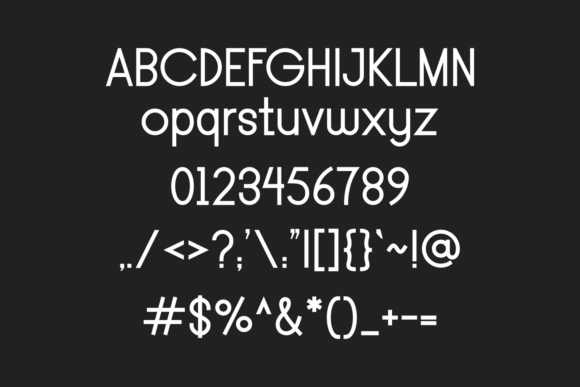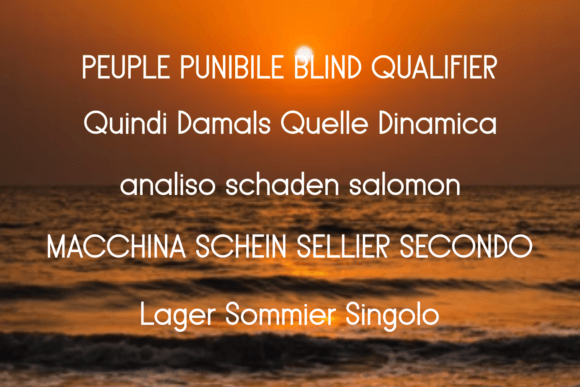
Introduction to Bagros Font
As you stare at your blank canvas, waiting for inspiration to strike, you know that the right font can make all the difference. You’ve been searching for the perfect sans serif to elevate your creative project, and we’re here to tell you that your search is over. Say hello to the Bagros Font, a modern and cool sans serif font that’s about to take your design to the next level.
With its sleek and sophisticated design, Bagros Font is the perfect addition to any project. Whether you’re working on a branding campaign, a logo, or a web design, this high-quality font is sure to impress. And the best part? It’s completely free to download, making it a valuable resource for designers of all levels.
Key Features of Bagros Font
- High-quality design resource with a unique, elegant style suitable for creative projects.
- Features a transparent background, making it easy to use in design projects with complex backgrounds.
- Supports a wide range of languages, including Latin, Cyrillic, and Greek alphabets.
- Includes multiple font styles, such as bold, italic, and regular, to suit different design needs.
- Designed with a high resolution (up to 1024 x 1024 pixels) for crisp and clear typography.
- Perfect for use in creative projects, such as logos, branding, and digital art, where a unique and elegant font is required.
Honest Review: Bagros Font
I recently came across the Bagros Font while searching for a design resource for a creative project. I was immediately drawn to its unique style and decided to give it a try.
- The font features a transparent background, allowing for seamless integration into various design elements.
- The Bagros Font is a high-quality addition to any design project, offering a unique and creative flair.
- The font’s versatility makes it suitable for a wide range of design applications, from print to digital media.
While the Bagros Font is a valuable design resource, I did encounter a few limitations during my testing.
- The Bagros Font may not be suitable for projects requiring a large font size, as it can appear distorted at larger sizes.
Overall, I’m impressed with the Bagros Font’s unique style and versatility. While it may have some limitations, it’s a valuable addition to any designer’s toolkit. I would recommend it for creative projects requiring a high-quality, unique font.
Tips for Getting the Most Out of Bagros Font
Experiment with different font sizes and styles to achieve the desired effect. Combine the Bagros Font with other design elements to create a unique and eye-catching design. Use the font in a creative project, such as a logo or brochure.
The Bagros Font is ideal for various design projects, including logos, brochures, business cards, and social media graphics. Its high-quality design makes it perfect for creative projects that require a professional touch.
Does Bagros Font have a transparent background?
No, Bagros Font does not have a transparent background. It’s a solid font with a clear and legible design. If you need a font with a transparent background, you may need to use a different font or adjust the design elements in your creative project accordingly.